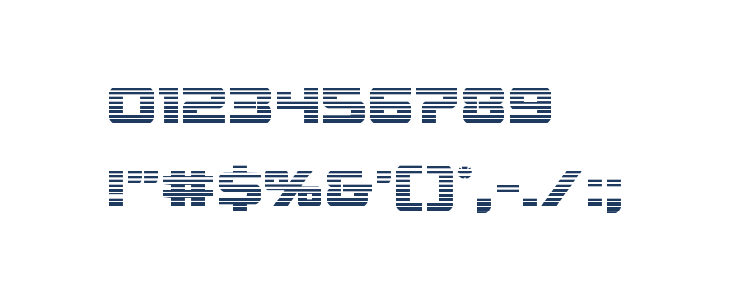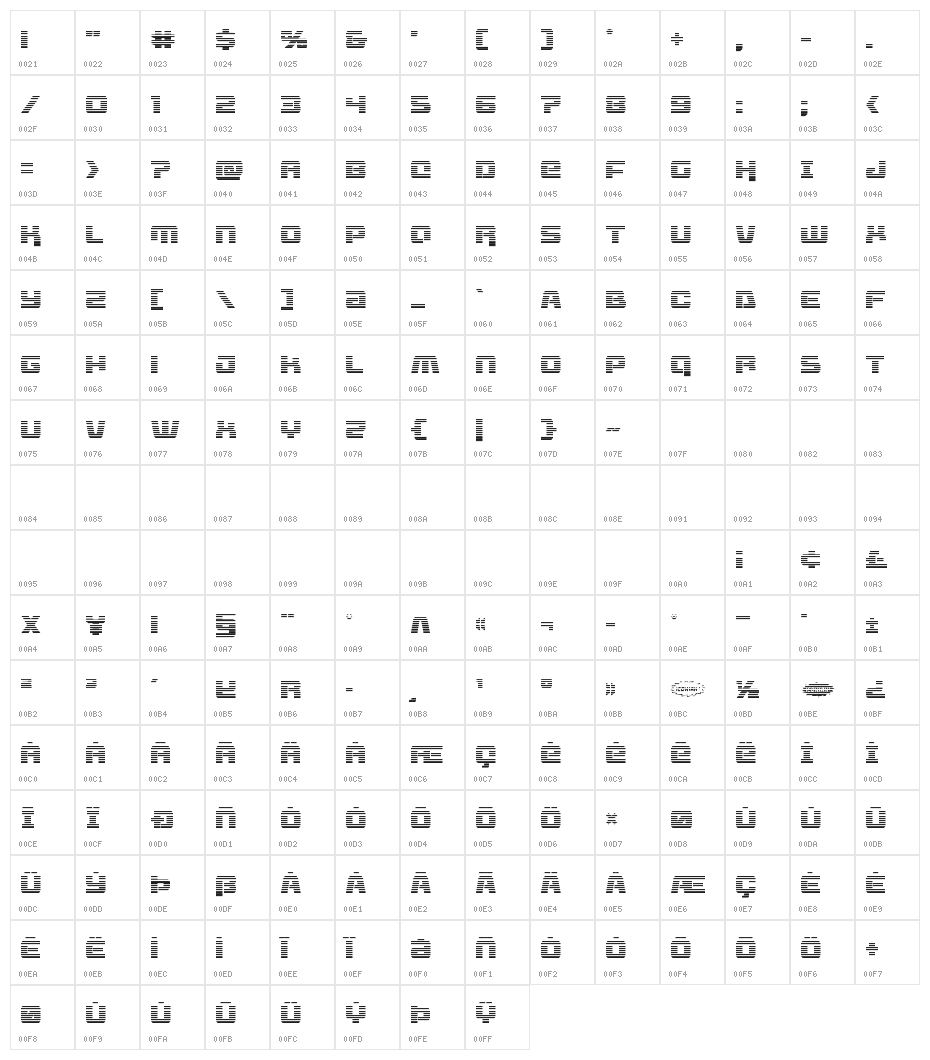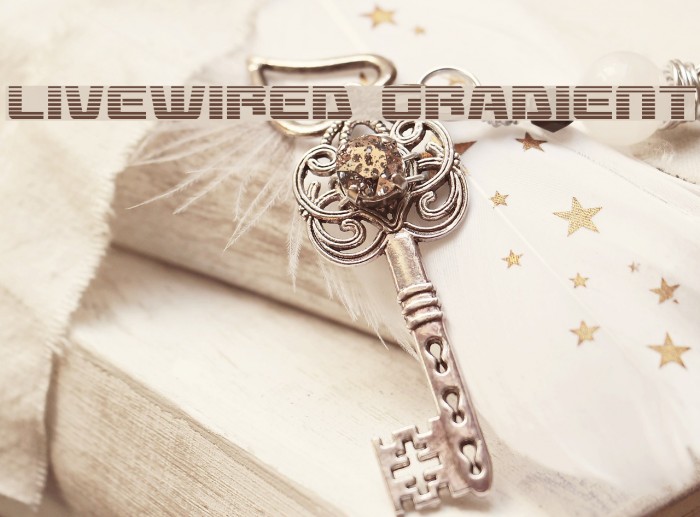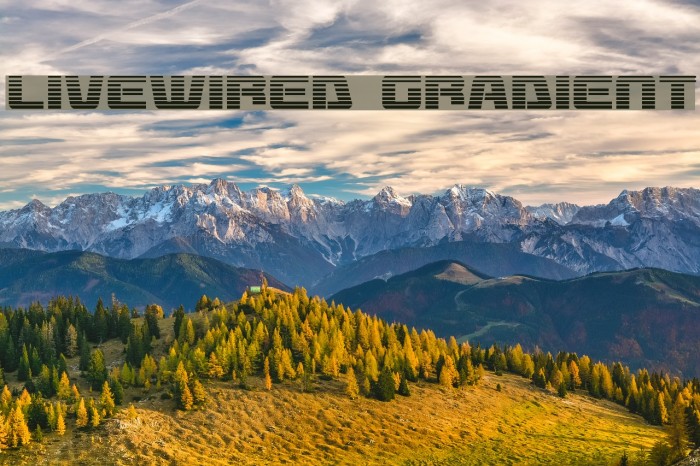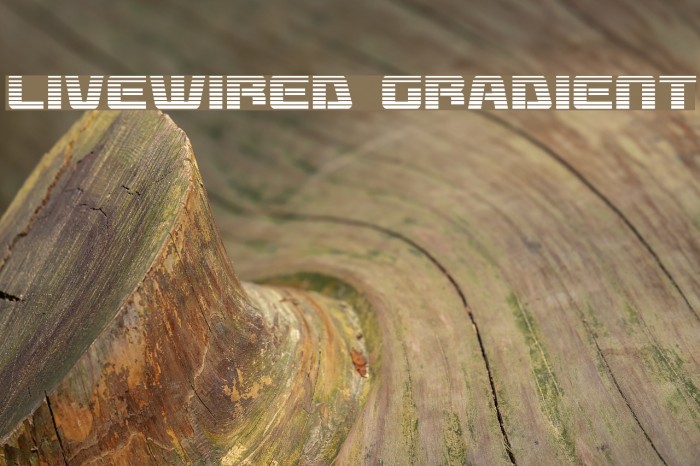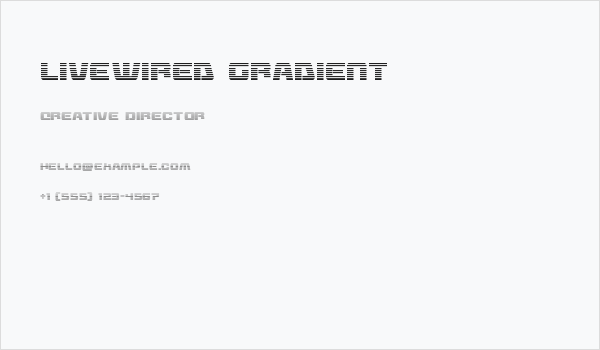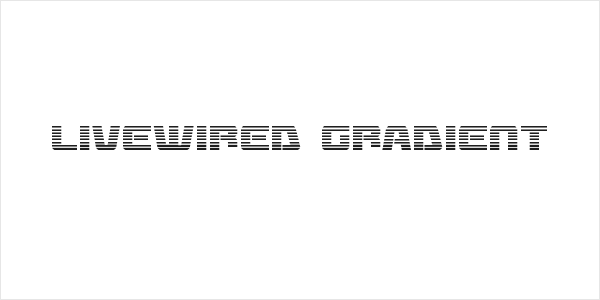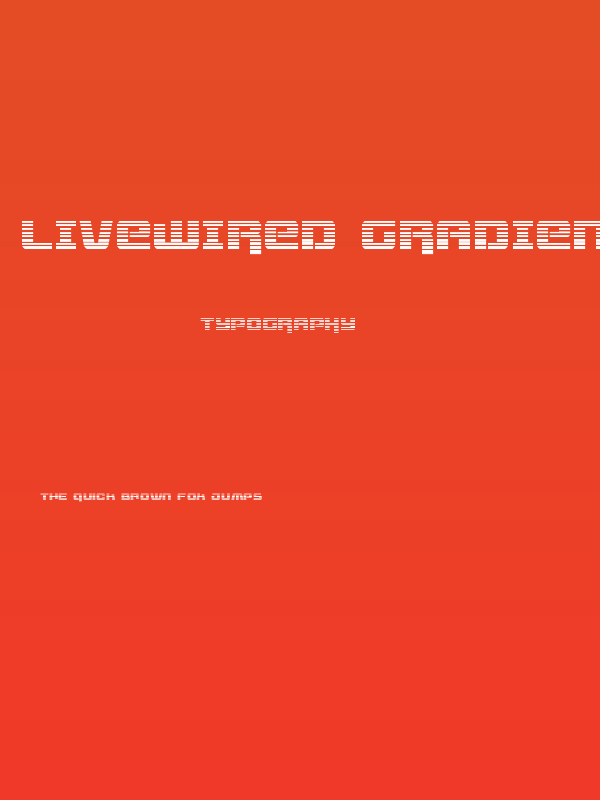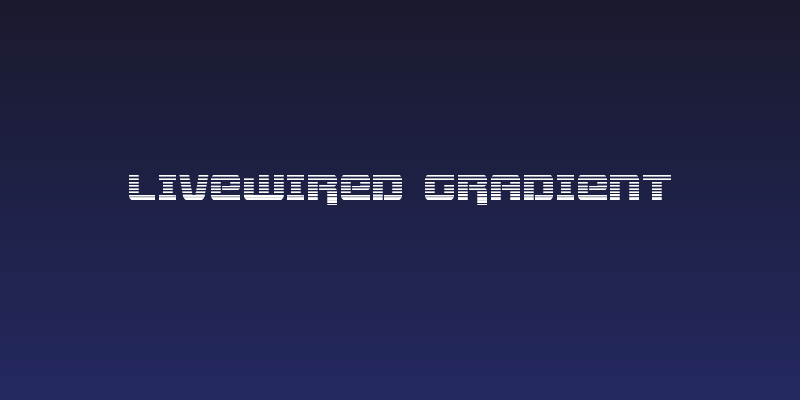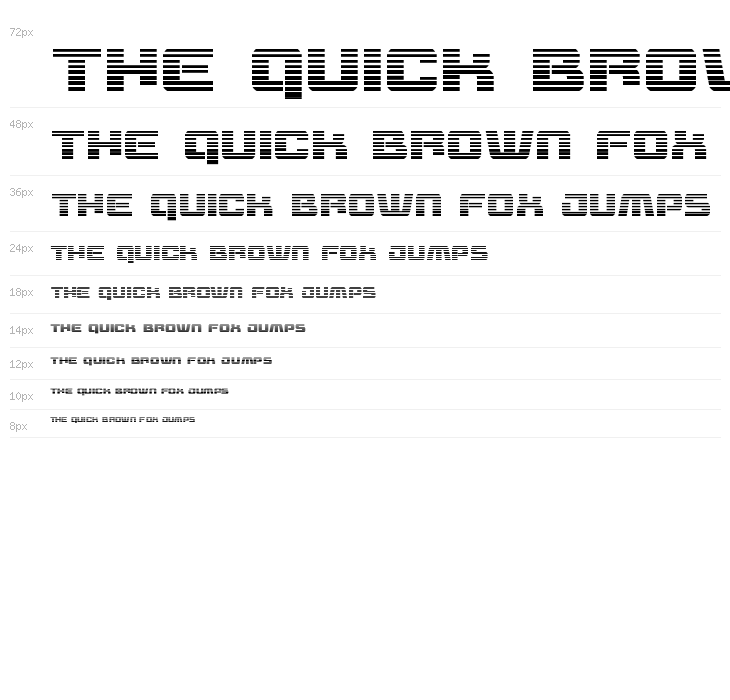
Livewired Gradient Font
Livewired Gradient Description
This font features a futuristic and digital aesthetic, characterized by its unique horizontal line pattern that creates a gradient effect across each character. The design is bold and striking, with a geometric structure that emphasizes a modern, tech-inspired look. The uppercase and lowercase letters maintain a consistent style, while the numerals and special characters complement the overall theme. The font's distinct appearance makes it ideal for projects that require a contemporary and edgy feel.
| Proposed Projects | Ideal for digital media, tech branding, video game titles, and sci-fi themed designs. |